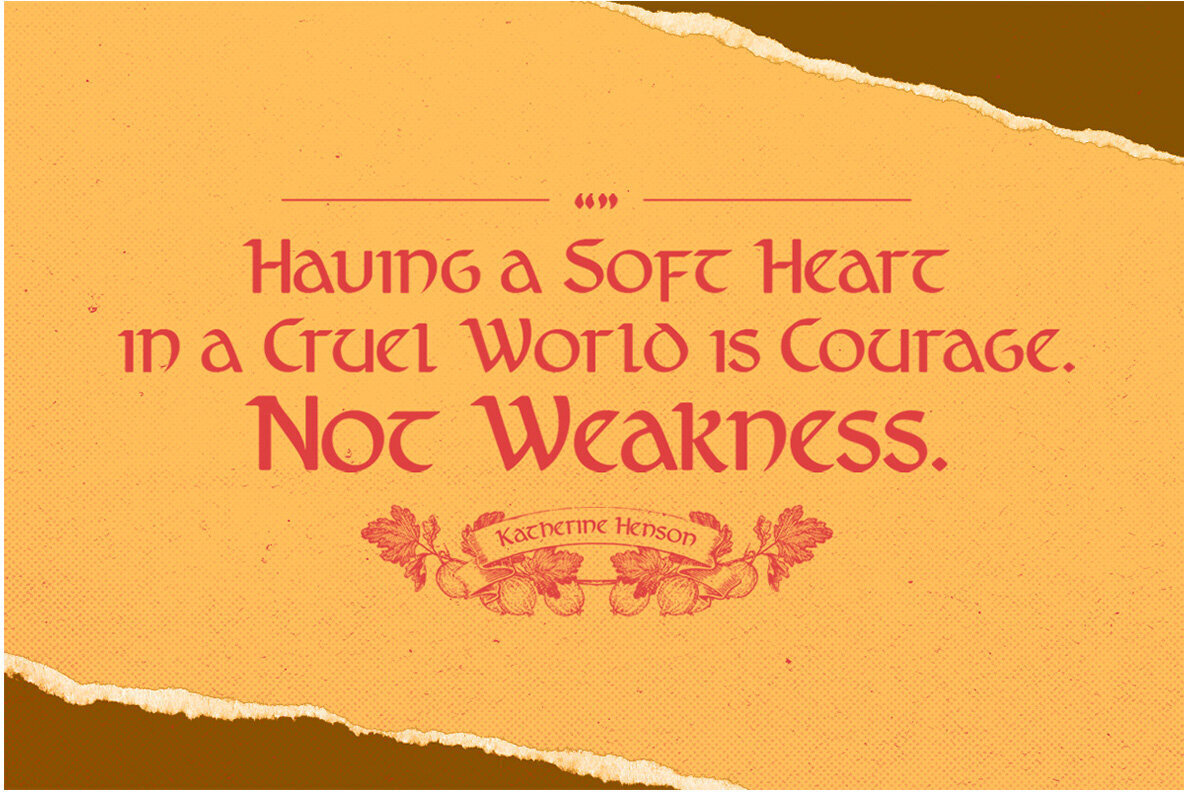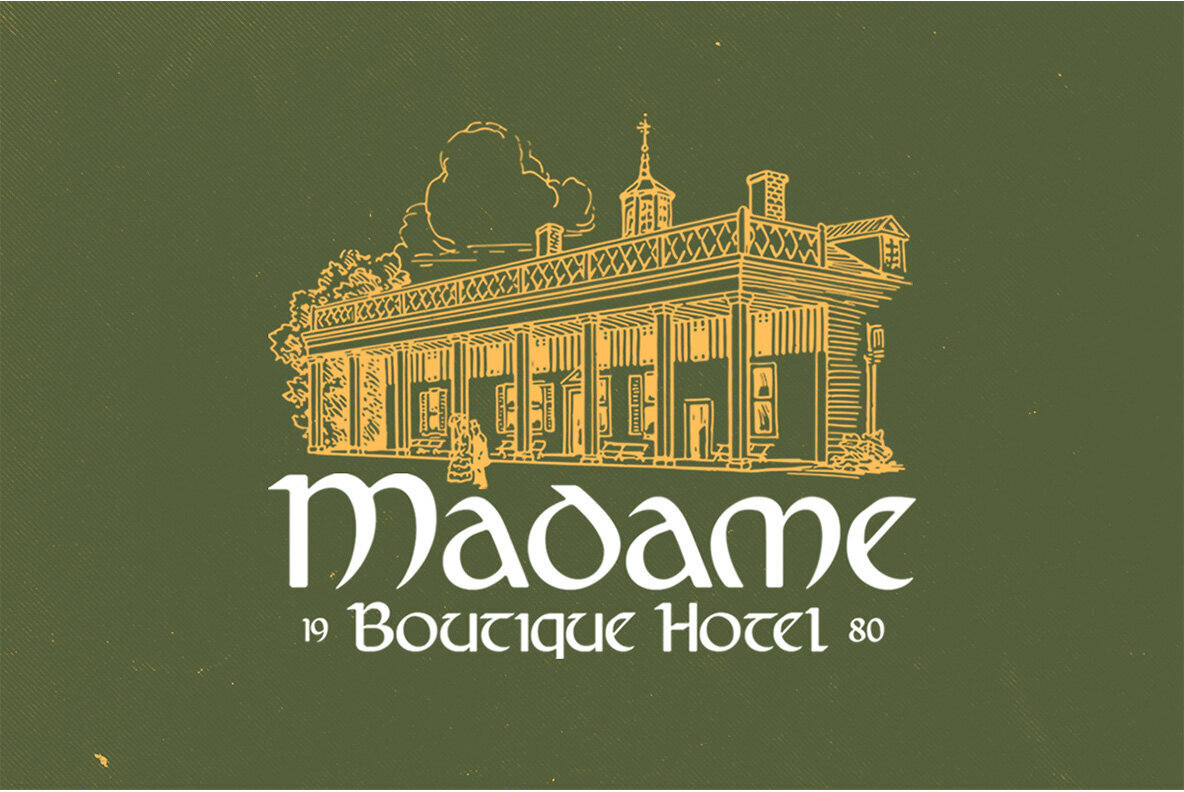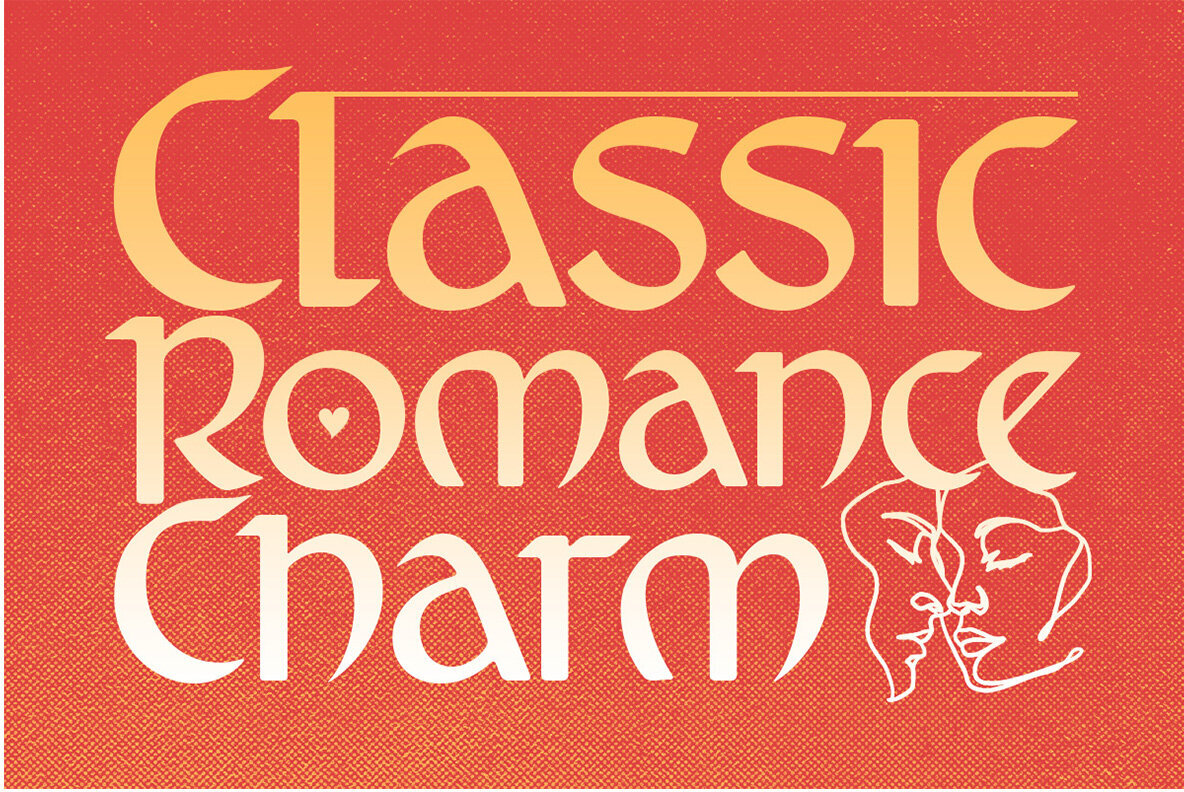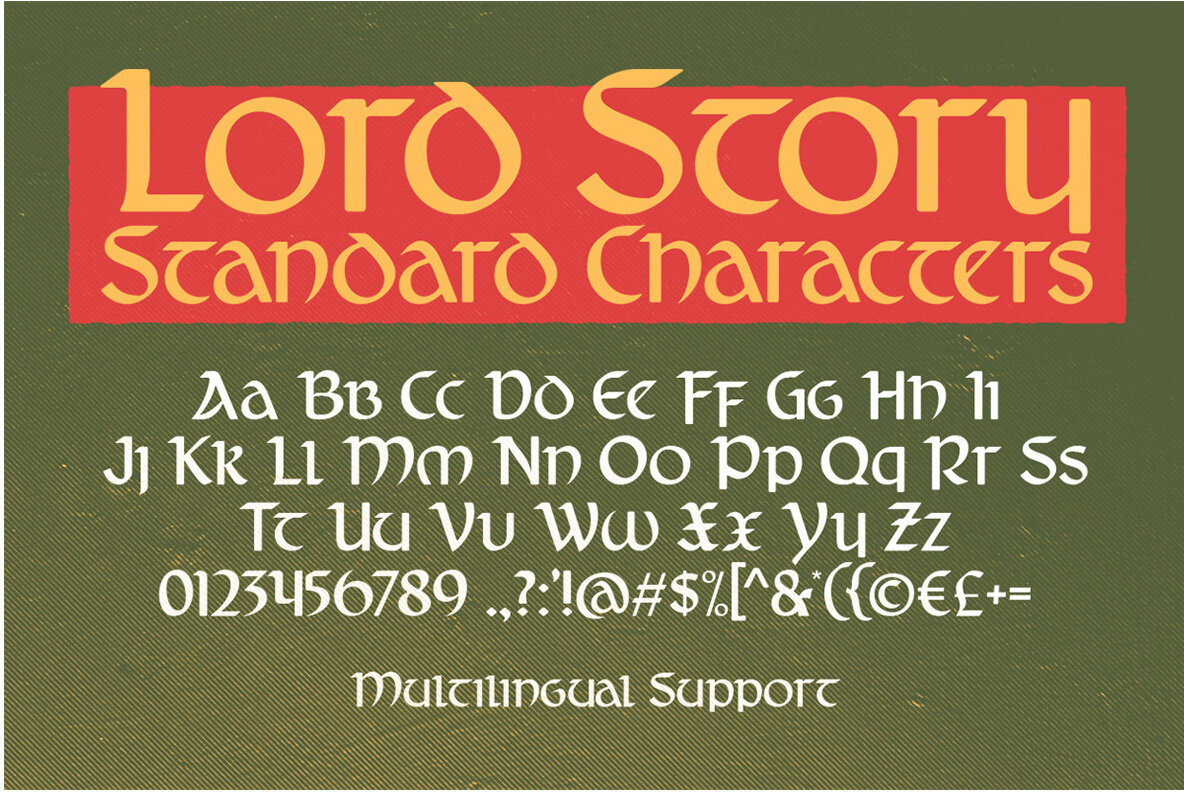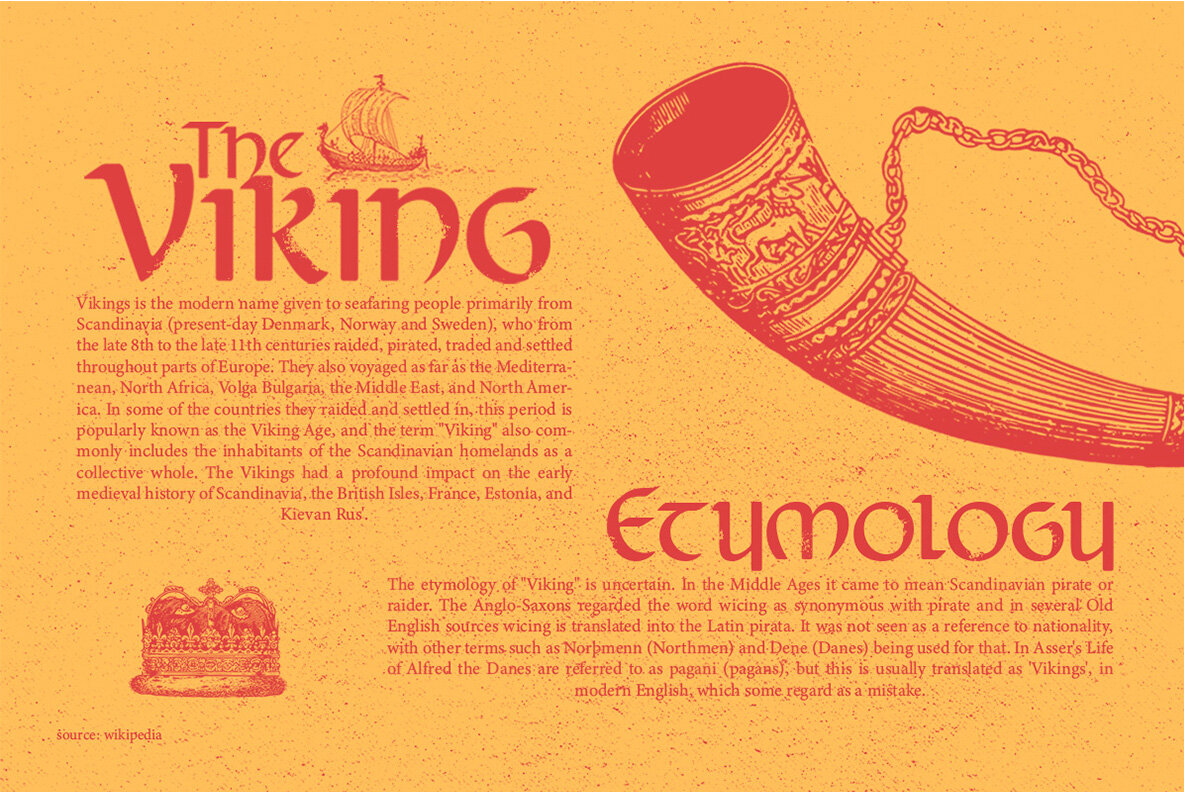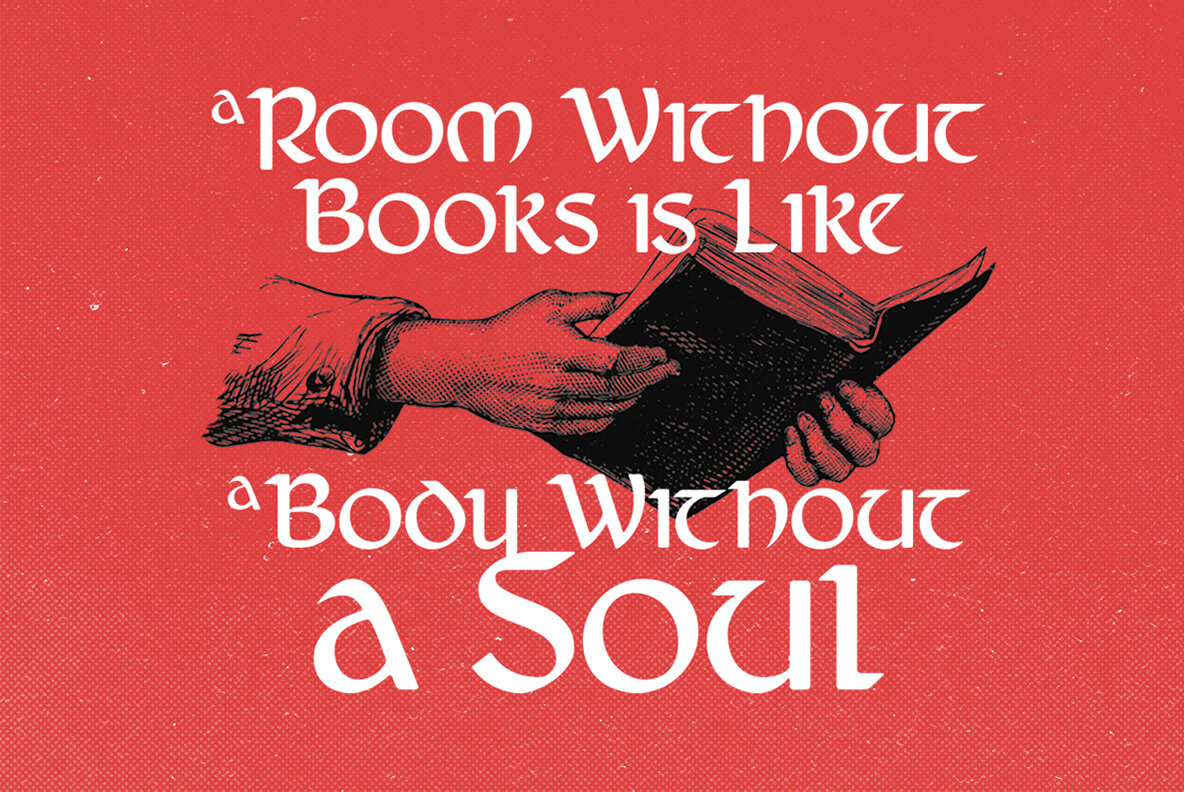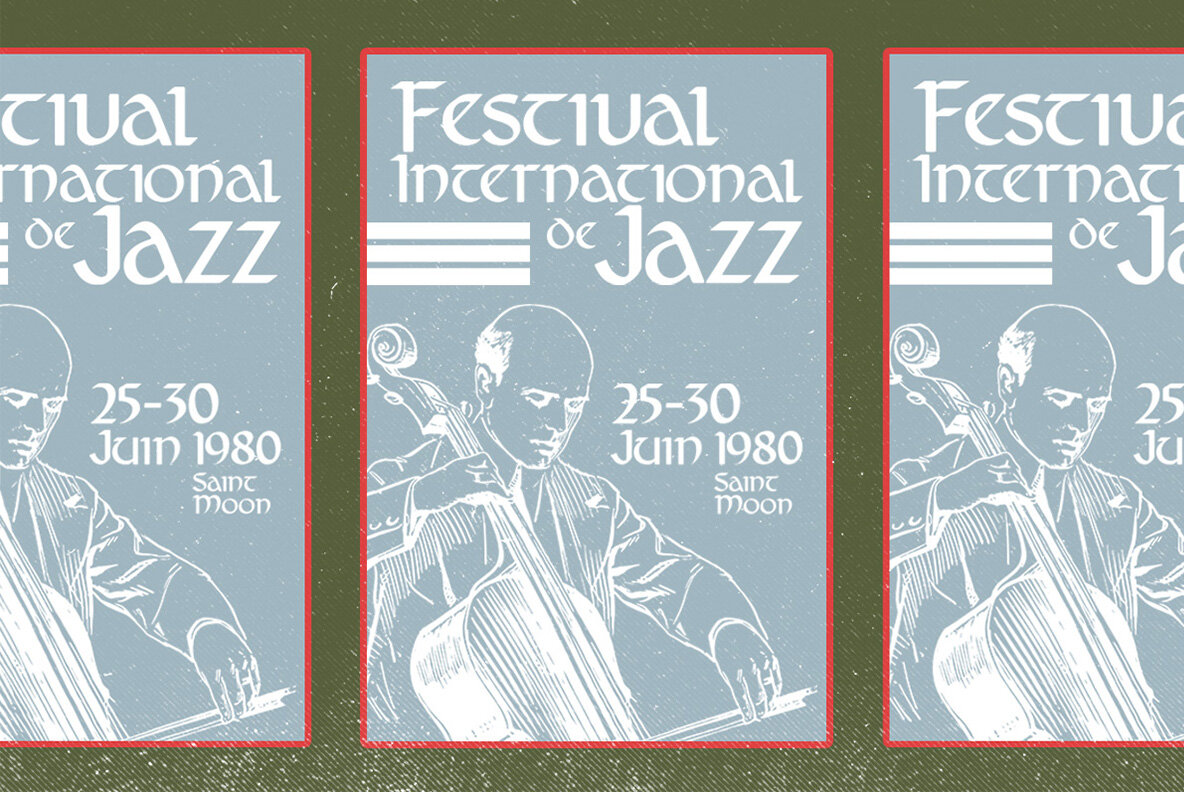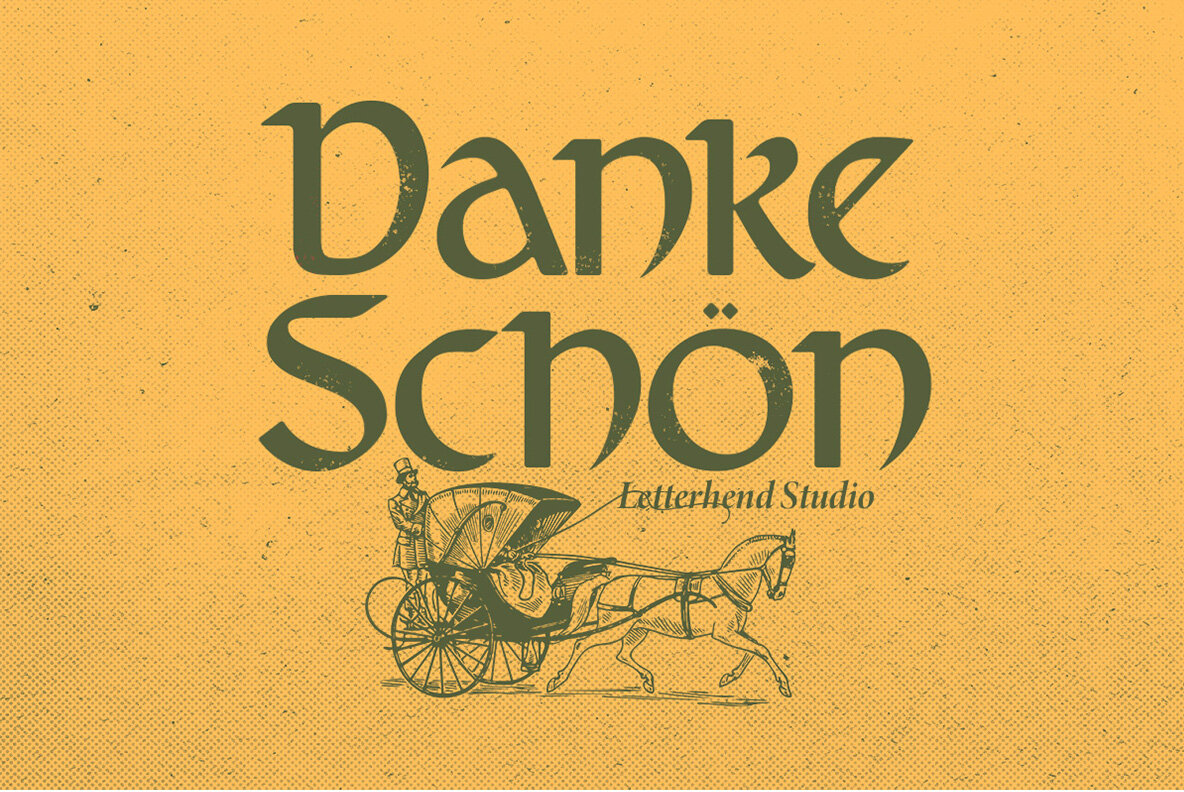
Lord Story Font
Lord Story Regular
Lord Story is an elegant display font with the medieval style theme. It's perfect for logos, invitations and other formal forms such as books covers or magazines advertisements purposes